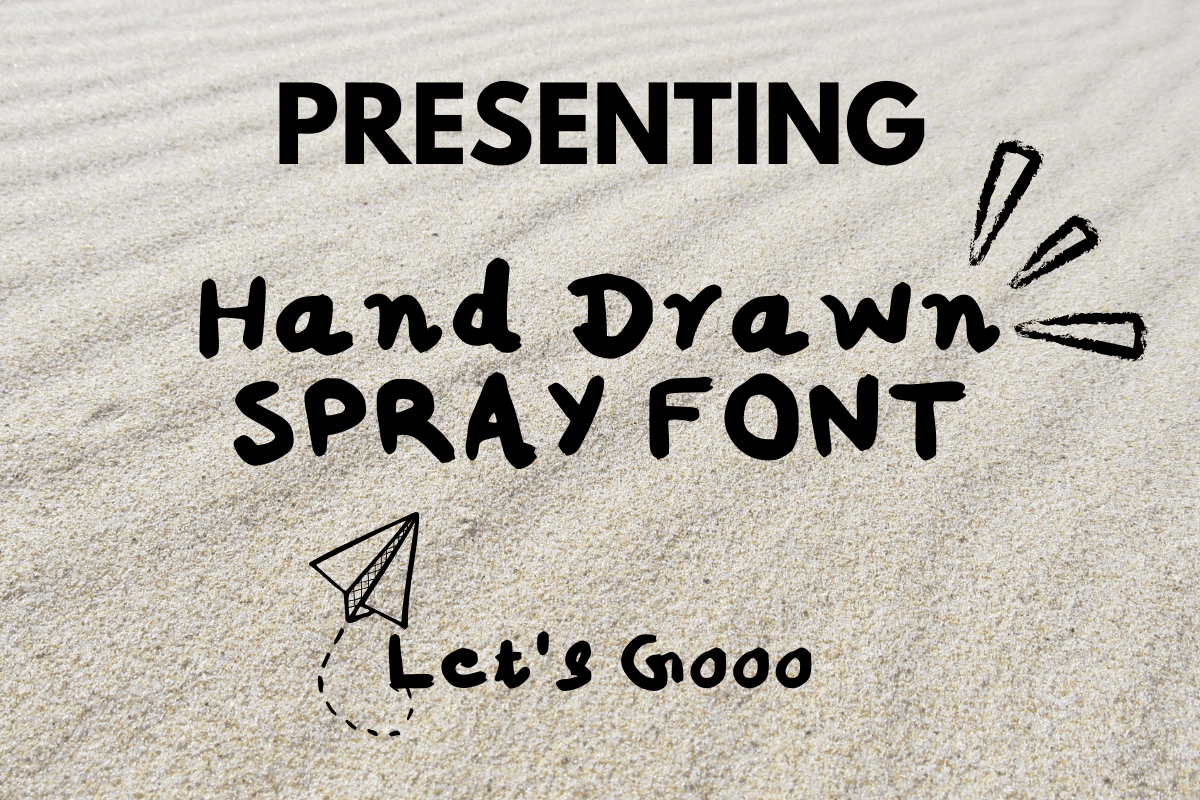
Unleashing Creativity with the Spray Font
In the dynamic world of design, finding the perfect font can transform your projects from mundane to magnificent. Enter Spray Font, a delightful addition to the Script Fonts category that embodies playfulness...